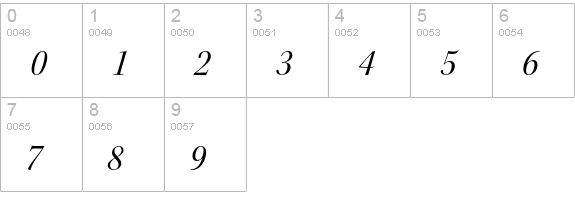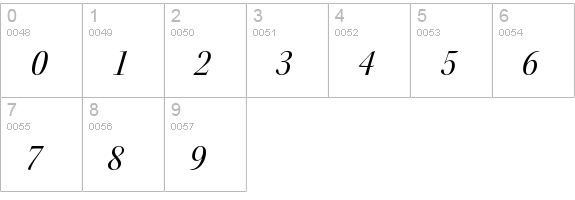
Kepler Std Semicondensed Italic Display Font Details
Kepler Std Semicondensed Italic Display is a distinctive, italic variant in the Kepler typeface family \xE2\x80\x94 well suited to design and typography projects.
Introducing Kepler Std Semicondensed Italic Display font, a stunning and versatile typeface that combines elegance with modernity. This font is perfect for creating eye-catching headlines, captivating display text, and stylish branding materials. With its semi-condensed proportions and italicized form, Kepler Std Semicondensed Italic Display font exudes a sense of sophistication and creativity. Its sleek and slanted design adds a touch of dynamism to any project, making it ideal for advertisements, packaging, editorial designs, and more. The free-flowing curves and subtle angles of Kepler Std Semicondensed Italic Display font create a harmonious balance between legibility and visual appeal. The letters effortlessly flow into one another, forming a seamless and visually striking composition. This font is not only visually captivating but also highly functional. Its clear and crisp letterforms ensure readability across various sizes and platforms. Whether used in print or on digital platforms, Kepler Std Semicondensed Italic Display font guarantees a flawless presentation every time. And the best part? Kepler Std Semicondensed Italic Display font is freely available to download at FontsMarket.com. This means that you can easily access this remarkable typeface and elevate your designs without any cost or hassle. So why wait? Enhance your creative projects with the versatile and visually stunning Kepler Std Semicondensed Italic Display font. Download it for free at FontsMarket.com and unlock a world of design possibilities.